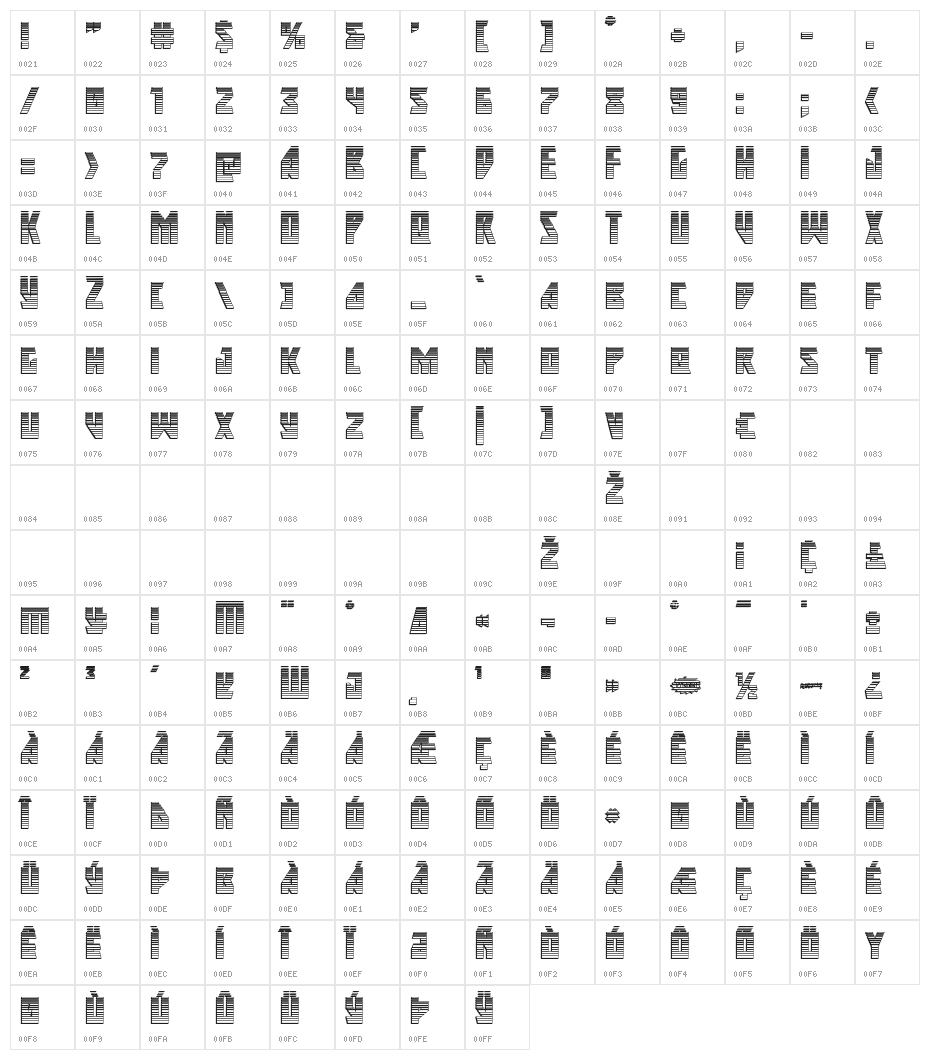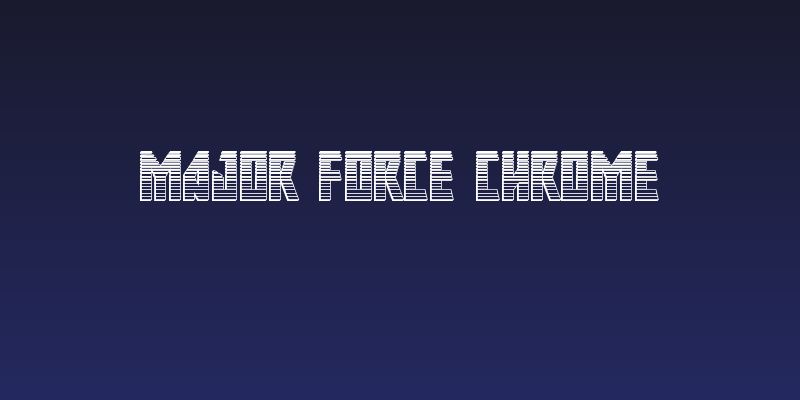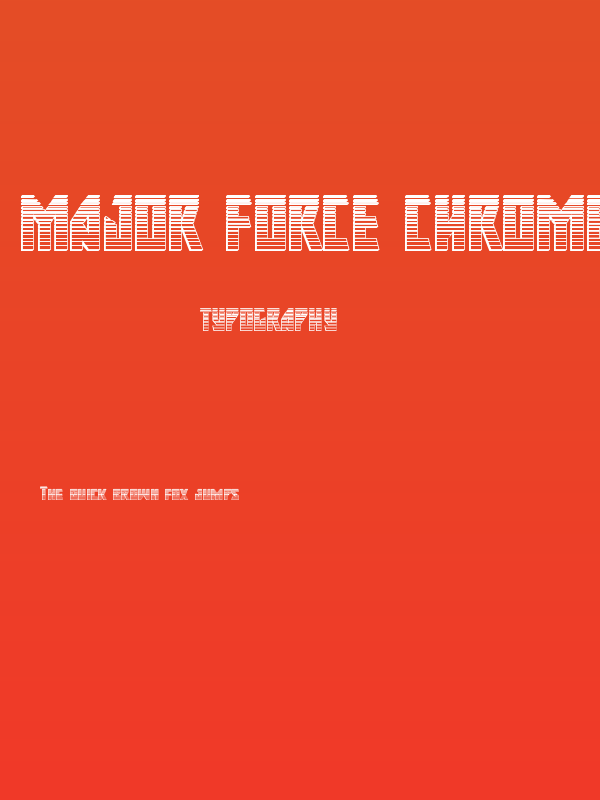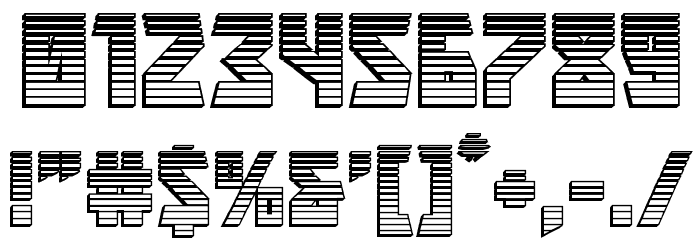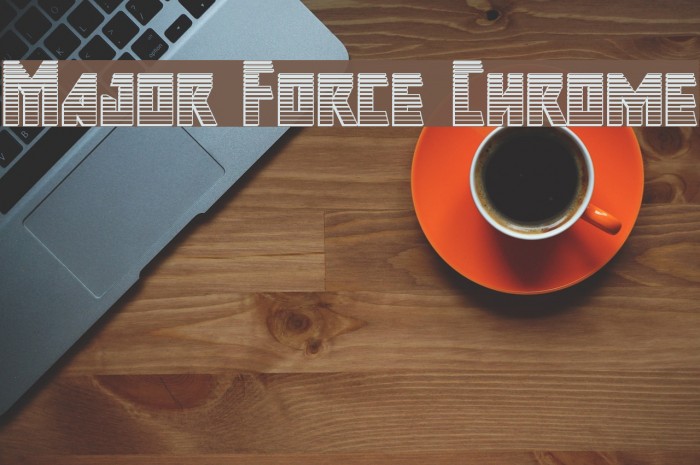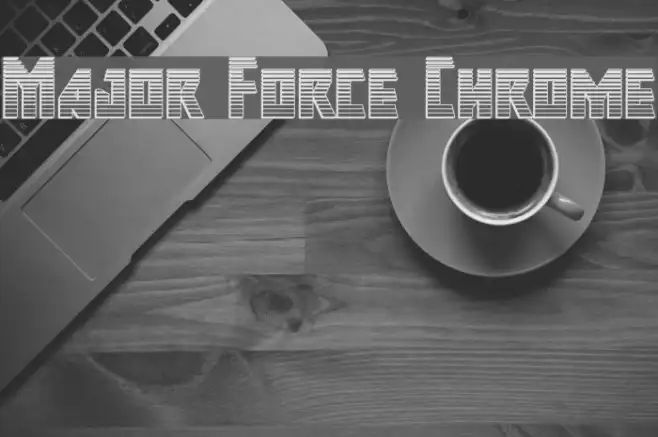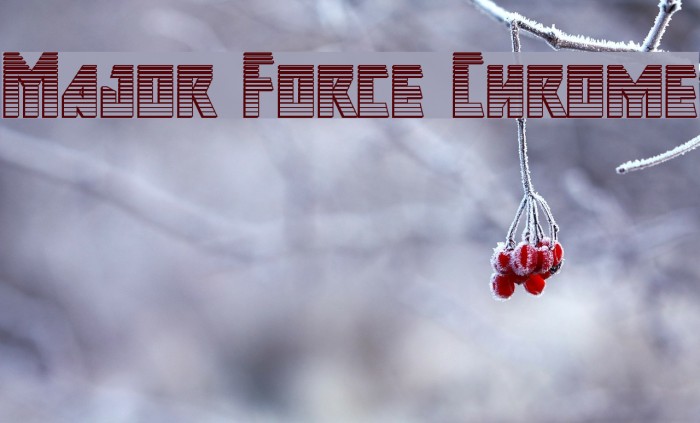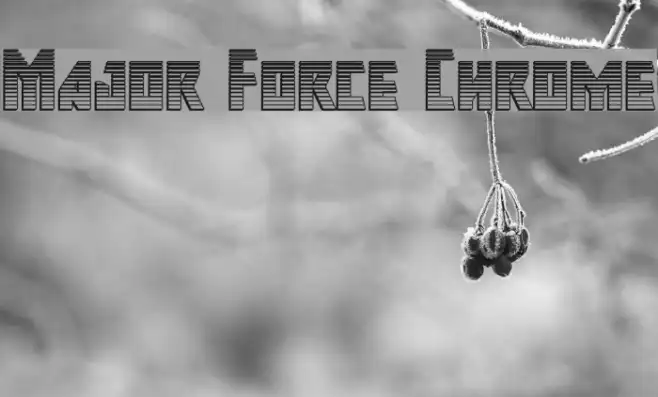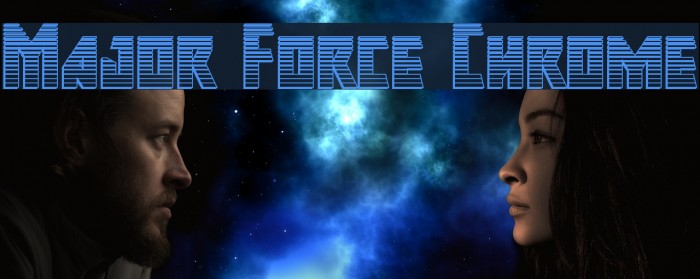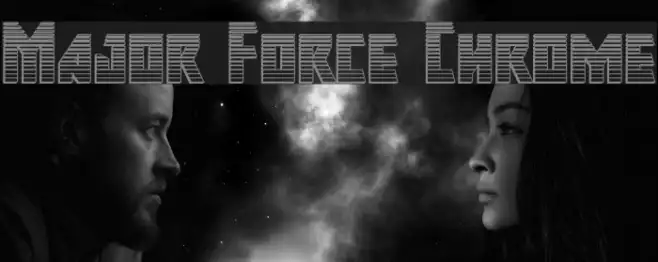
Major Force Chrome Font
Major Force Chrome Description
This font features a bold, futuristic design with a distinctive chrome-like appearance. Each character is constructed with a series of horizontal lines that create a three-dimensional effect, giving the impression of depth and metallic sheen. The uppercase and lowercase letters maintain a consistent style, with sharp angles and geometric shapes that enhance the modern aesthetic. The numerals and special characters follow the same design principles, ensuring uniformity across all glyphs. This font's unique style makes it stand out, ideal for projects that require a strong visual impact.
| Overall Style | Futuristic, Modern |
| Proposed Projects | Ideal for sci-fi themed designs, video game titles, tech branding, and futuristic posters. |